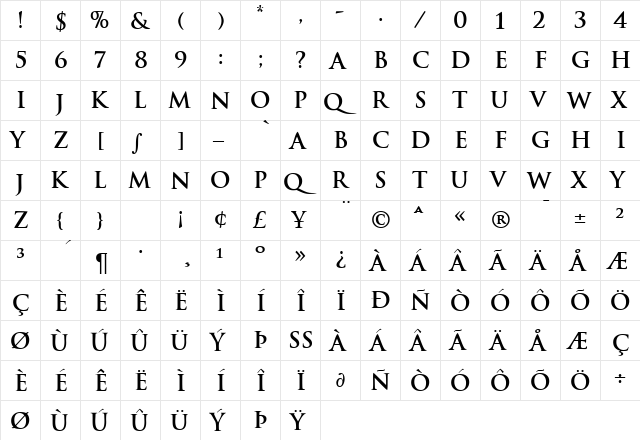
Tradition Bold
Design Context for Tradition Typeface
Tradition offers clean, dependable letterforms without strong stylistic allegiance, making it a practical choice for designers who need flexibility. Its bold stroke weight gives it real presence on the page.